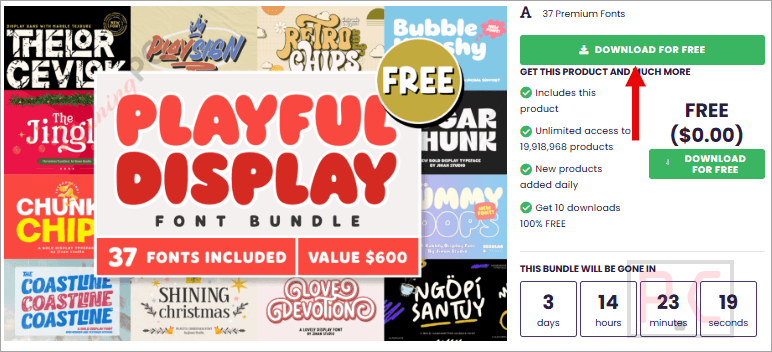
The Playful Display Font Bundle is a typographic asset package containing diverse display font files engineered for digital and physical print applications. The collection aggregates multiple typographic styles for direct integration into posters, apparel designs, die-cut stickers, greeting cards, social media assets, and craft layouts. The bundle supplies varied lettering formats and explicitly supports both personal and commercial usage licensing.
Playful Display Font Bundle is full of fun and creative fonts that make designs look more lively. The styles are cute, bold, and easy to use for posters, crafts, children’s projects, and social media graphics. It offers a great variety and adds personality to any design.